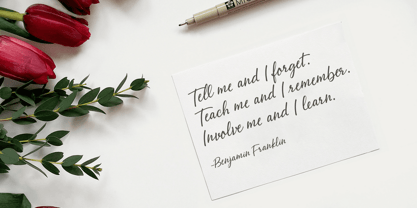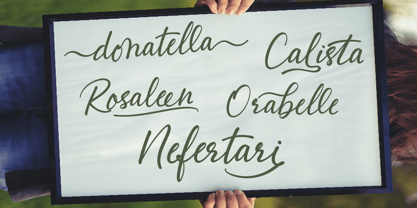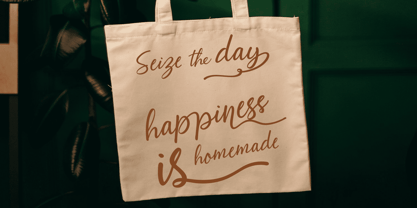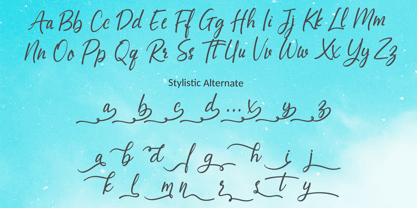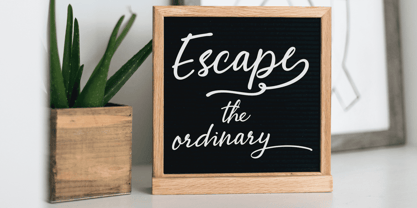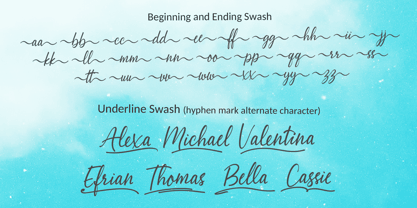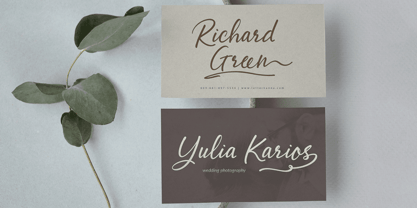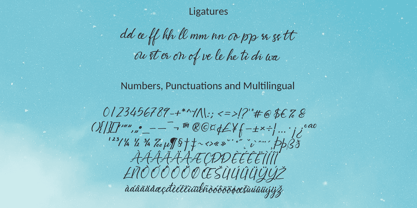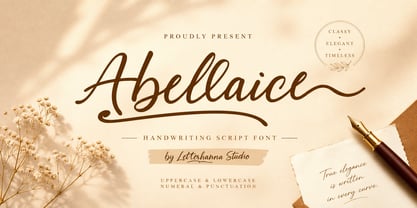
Abellaice
by Letterhanna Studio
The Abellaice Font Family was designed by Rinaldo Hasibuan and published by Letterhanna Studio. Abellaice contains 3 styles. More about this family
Abellaice is a graceful script font. Fall for its ravishing style and use it to create gorgeous wedding invitations, beautiful stationary art, eye-catching social media posts, and much more! Abellaice is PUA encoded which means you can access all glyphs and swashes with ease!
Designers: Rinaldo Hasibuan
Foundry: Letterhanna Studio